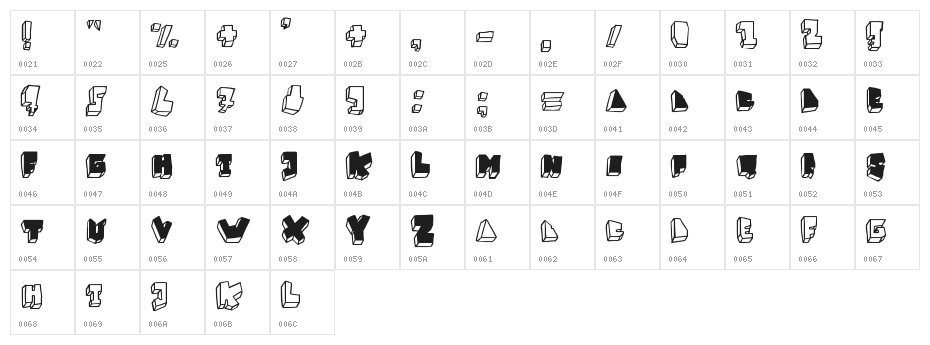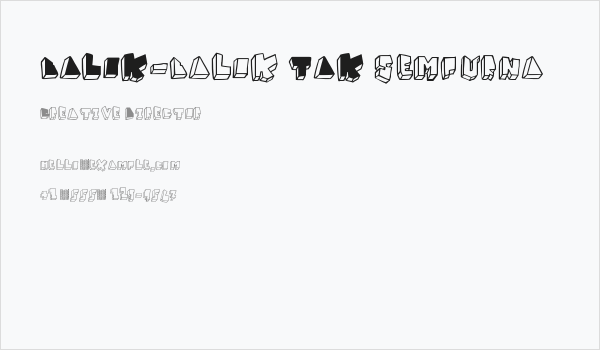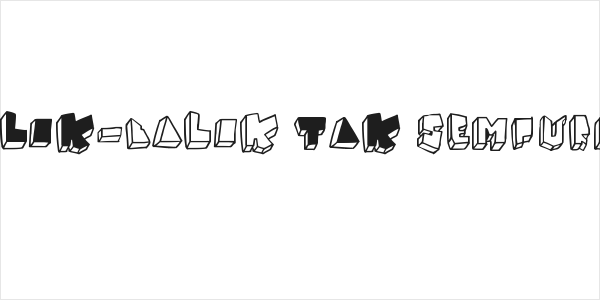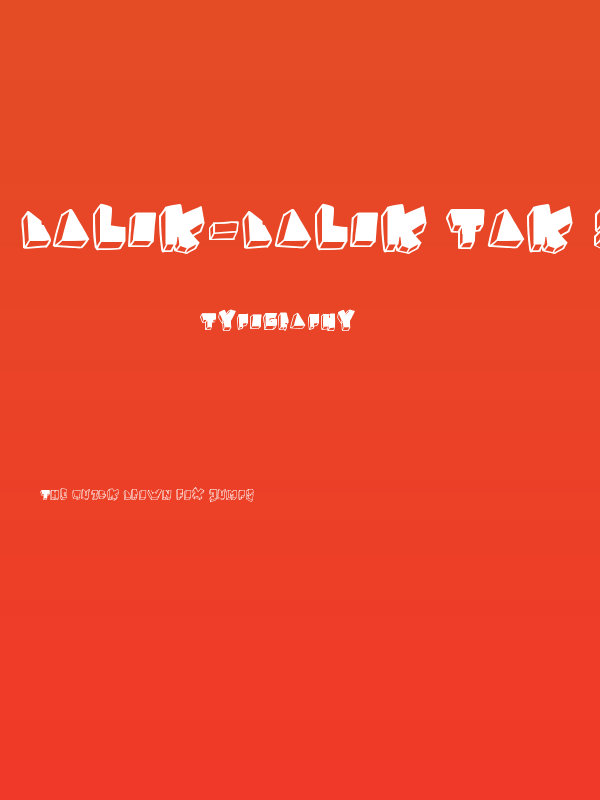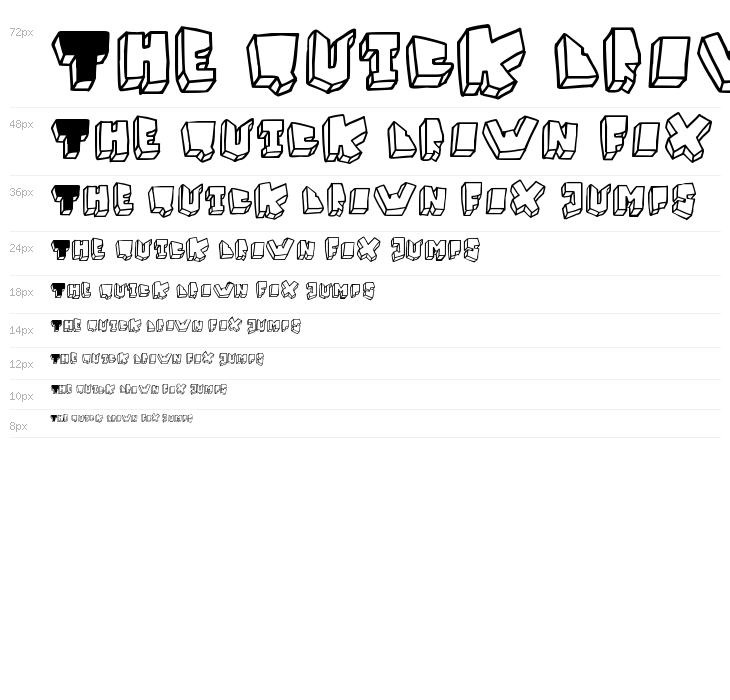
BALOK-balok TAK sempurna Font
BALOK-balok TAK sempurna Description
This font features a bold, three-dimensional block style that gives it a striking and impactful appearance. The letters are designed with a thick outline and a shadow effect, creating a sense of depth and solidity. Each character appears as if it is carved from a solid block, with angular edges and a geometric form. The uppercase and lowercase letters maintain a consistent style, enhancing the cohesive look of the font. Numbers and special characters are also included, following the same bold and dimensional design. This font is ideal for projects that require a strong visual presence and a modern, edgy aesthetic.